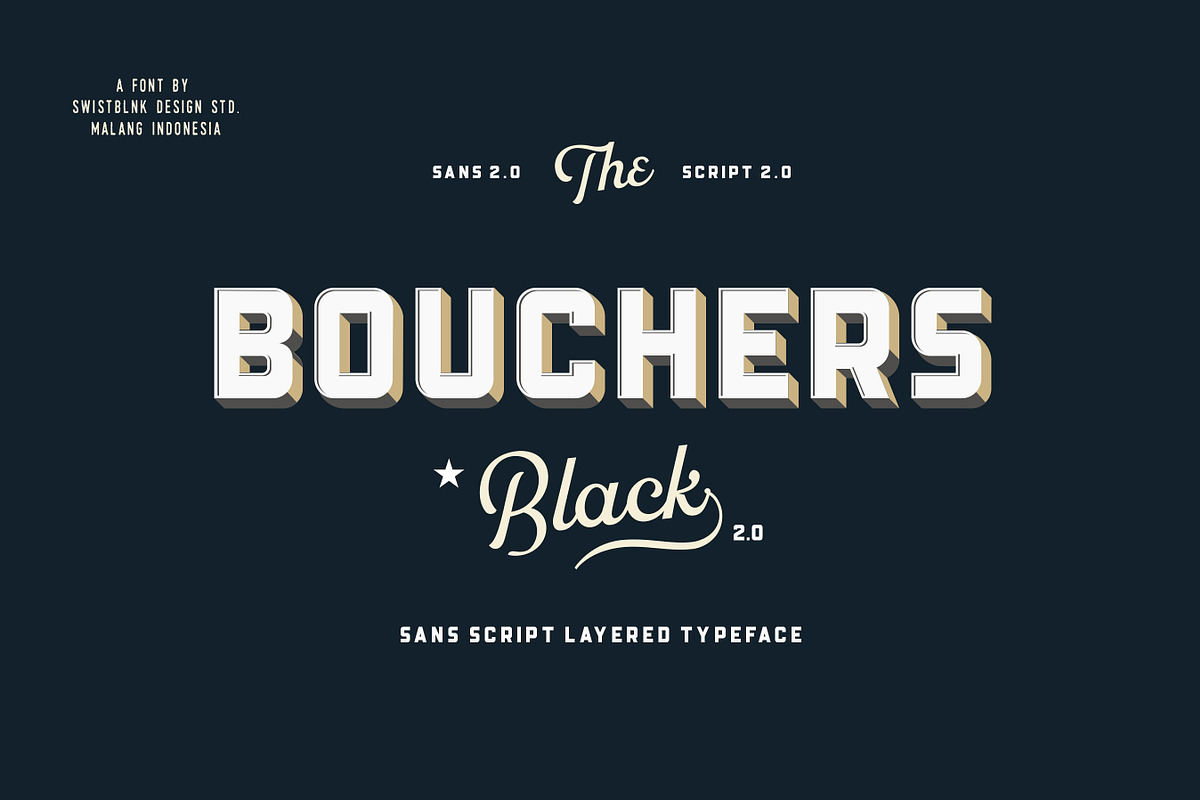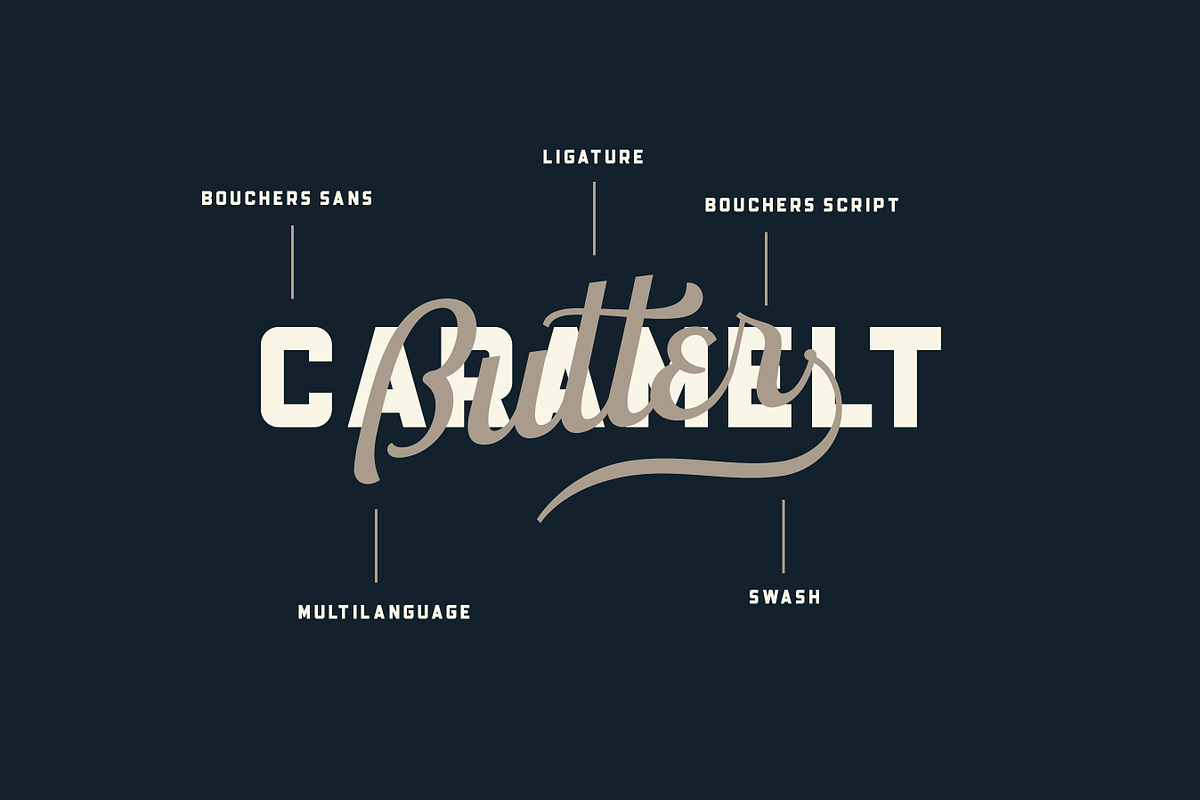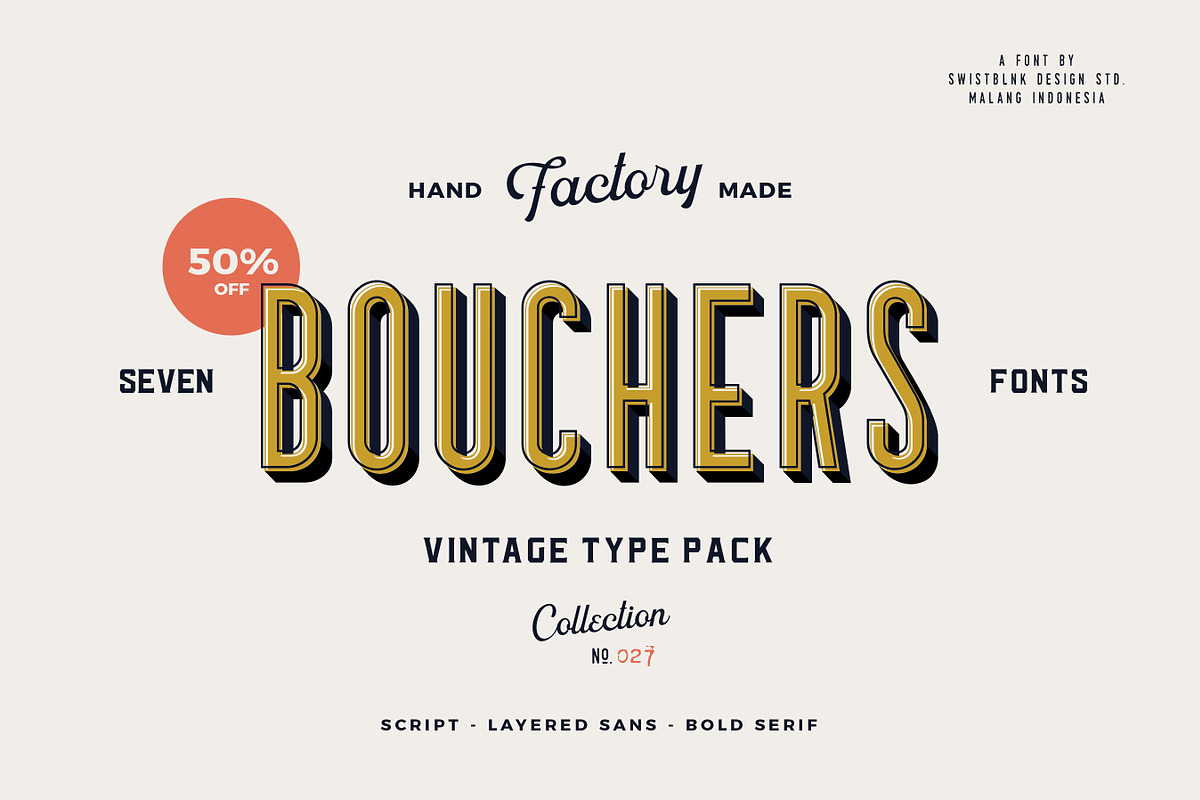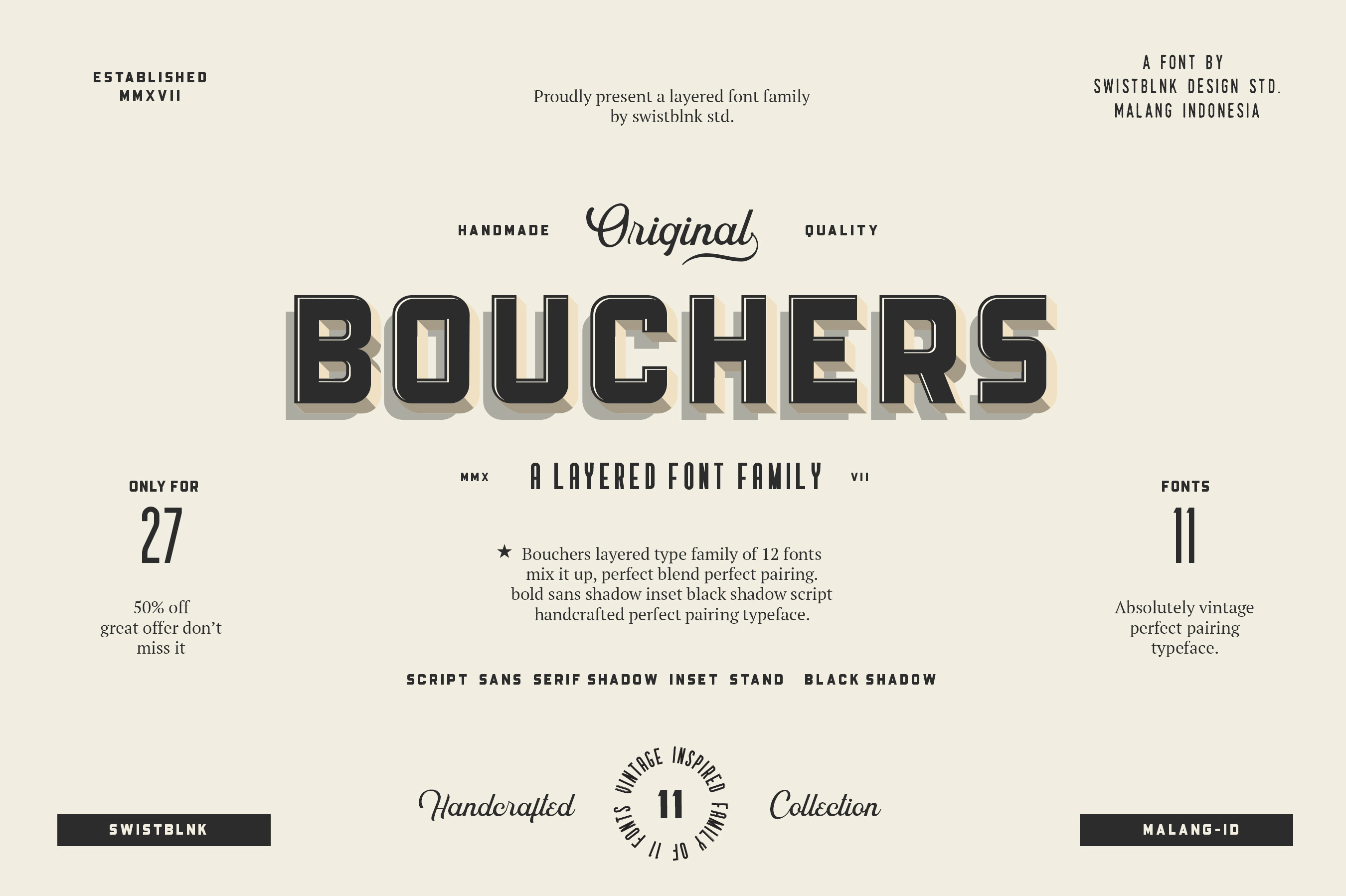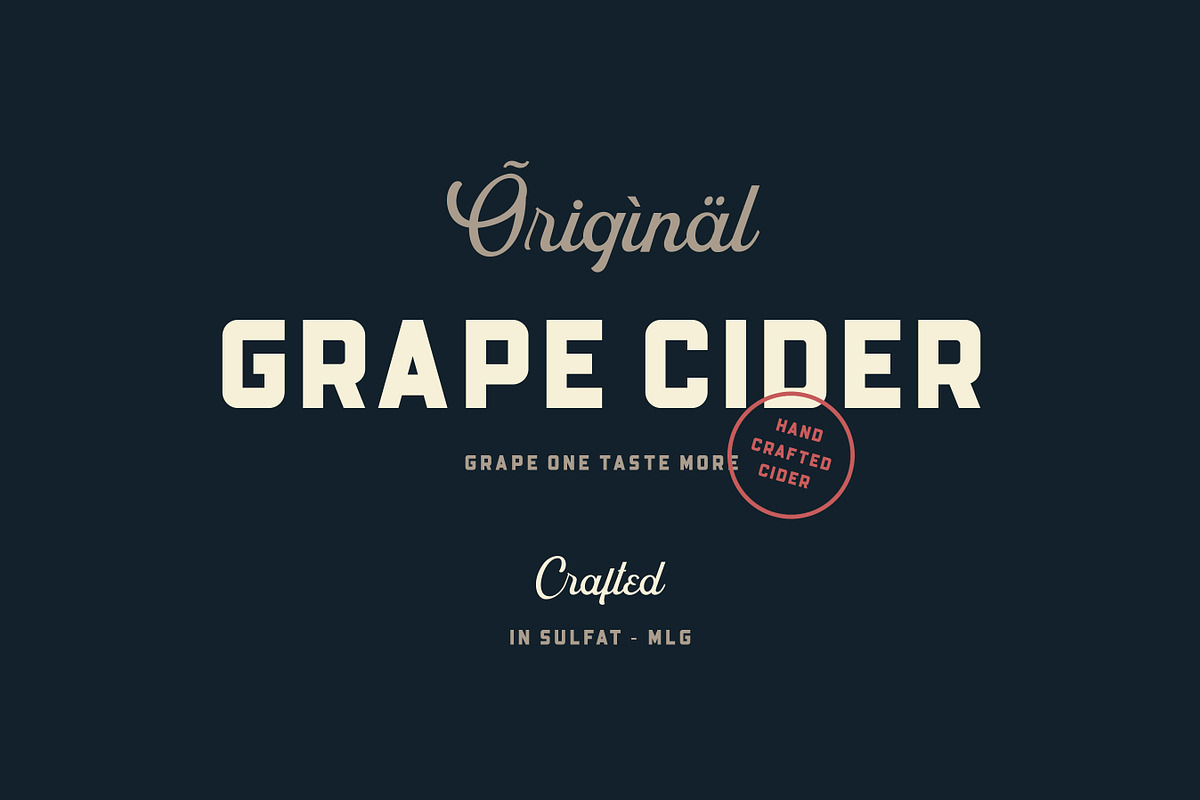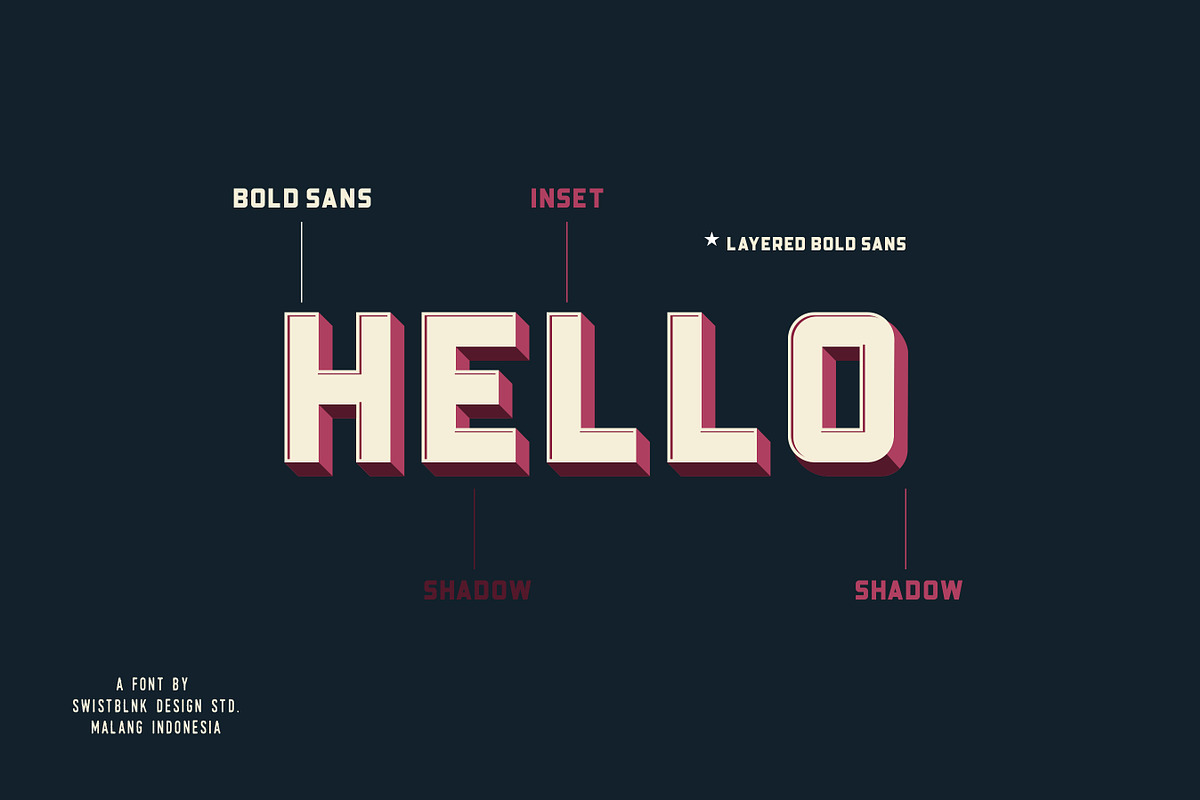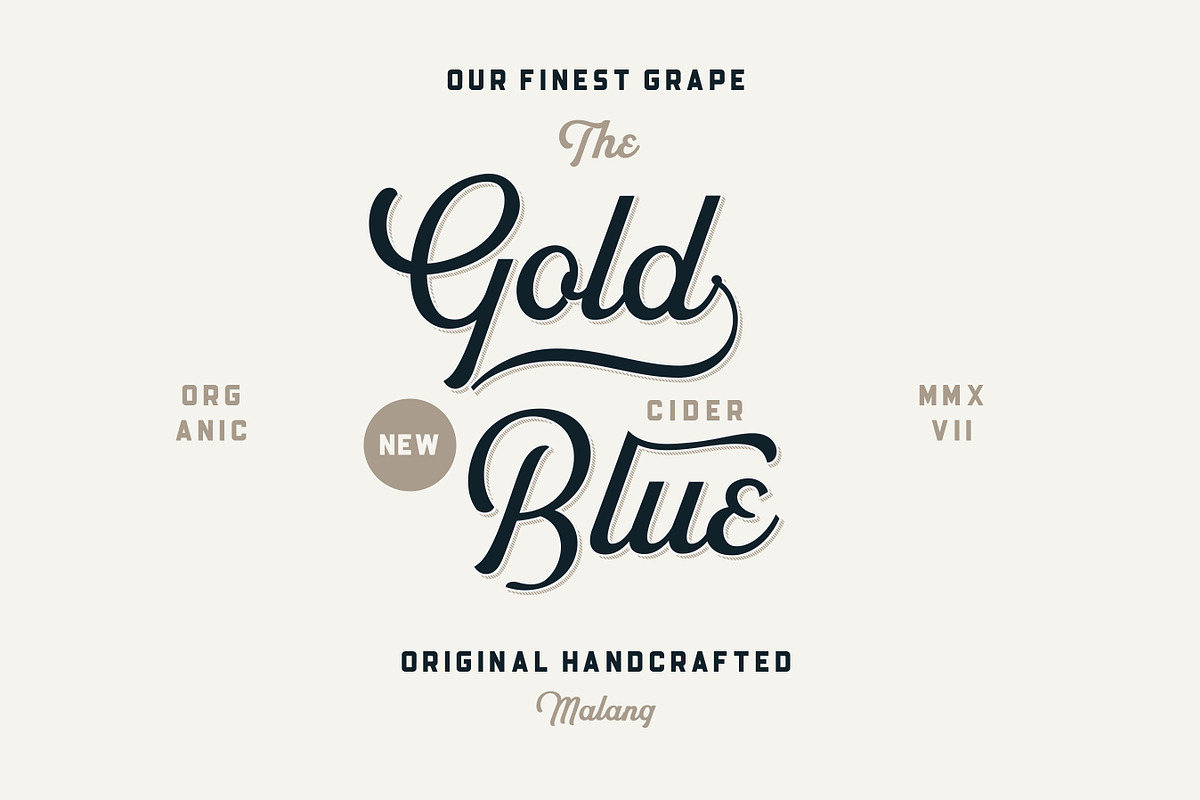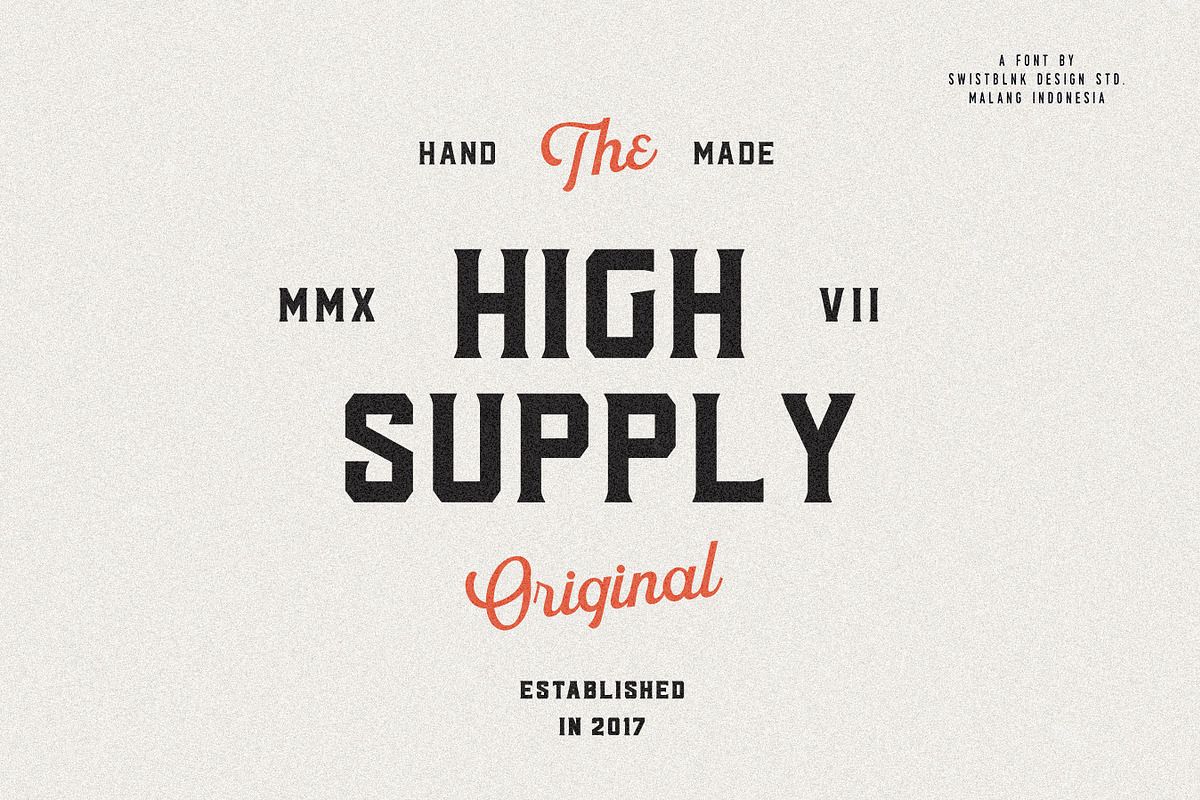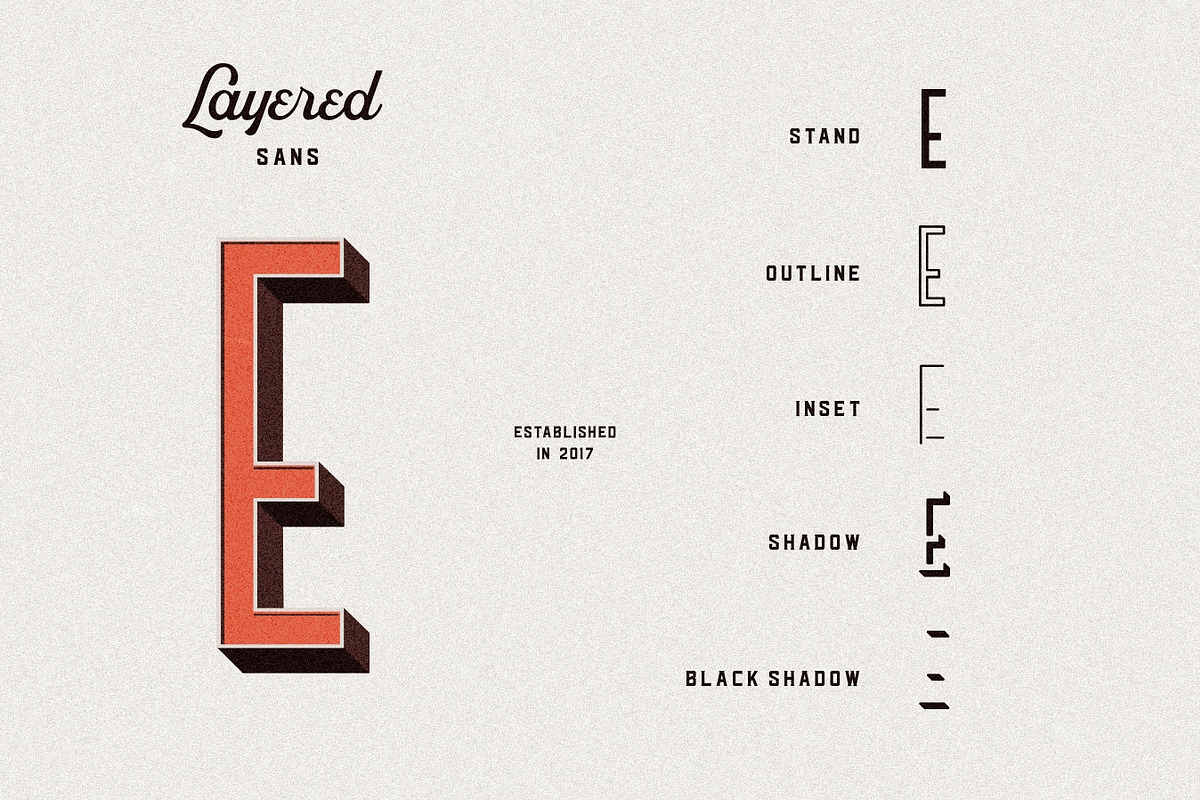
Bouchers Layered | Font Bundle
Bouchers Family - Perfectly well together for an authentic Modern Vintage look
This font family come with layered type system, there are so many possibilities combination.
- Bouchers Stand
- Bouchers Outline
- Bouchers Inset
- Bouchers Shadow
- Bouchers Black Shadow
- Bouchers Serif
- Bouchers Script 2.0
- Bouchers Sans 2.0
- Bouchers Sans Inset
- Bouchers Sans Shadow
- Bouchers Sans Black Shadow
Bouchers Font Family Features :
- Accents (Multilingual characters in some fonts)
- Suitable for Headlines, Logotypes, Signs, Posters, Letterhead, T-Shirt and many more.